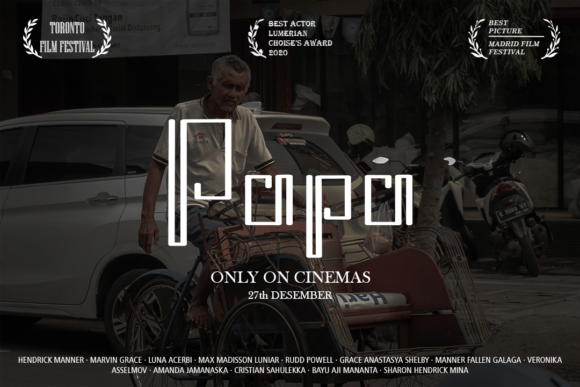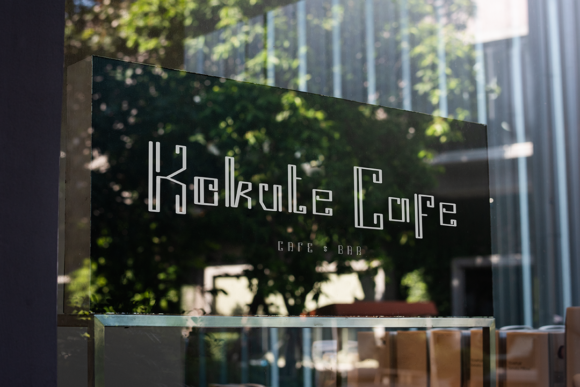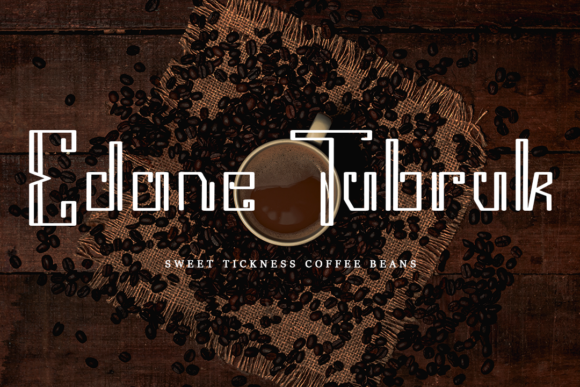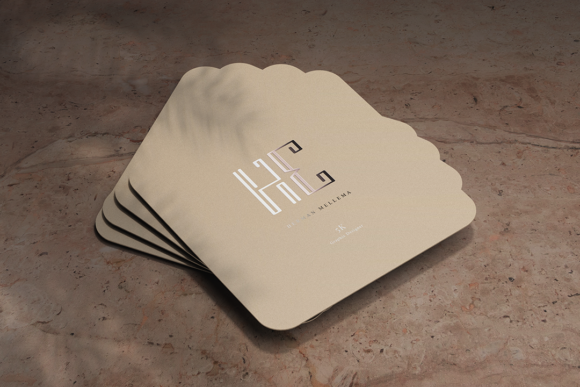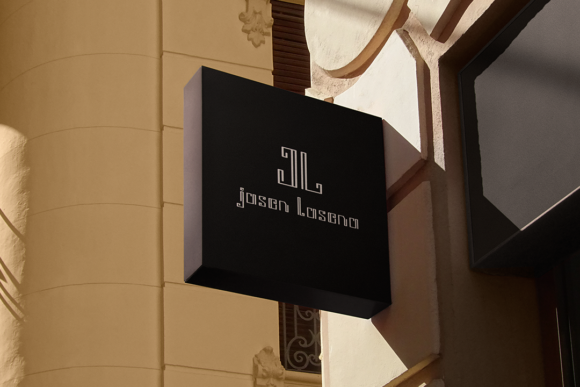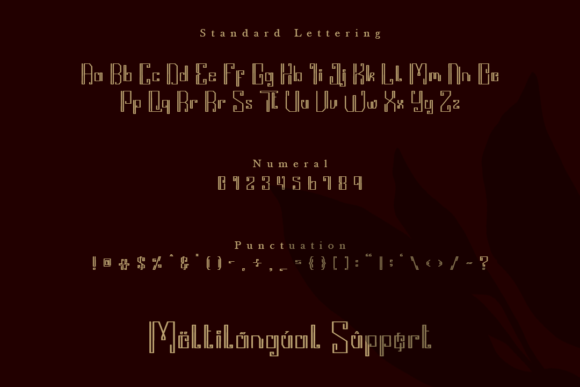
Unlock the Creative Potential of Your Designs with Javana Font
Have you ever stared at a blank canvas, waiting for inspiration to strike? We’ve all been there – the blank page, the empty screen, the ‘what’s next?’ feeling. But sometimes, all it takes is the right tool to spark that creative spark. For designers, graphic artists, and crafty enthusiasts, the Javana Font is that game-changing tool. This genuine and interesting display font is designed to add a touch of trendiness to your projects, whether you’re working on digital designs, presentations, or crafting handmade cards.
The Javana Font is more than just a stylish addition – it’s a valuable asset for designers looking to elevate their work. With its perfect balance of modern flair and timeless elegance, this font is sure to leave a lasting impression on your audience. Whether you’re a seasoned pro or just starting out, the Javana Font is an essential addition to your design toolkit.
Javana Font Key Features
- Font Family: Javana Font is a sans-serif font family, designed to provide a clean and modern look for digital and print media.
- Character Count: The font family includes over 500 characters, including Latin, Cyrillic, and Greek alphabets, as well as punctuation and diacritical marks.
- Unique Characteristics: Javana Font features a distinctive x-height and a unique letterform design, making it stand out from other sans-serif fonts and adding a touch of elegance to digital and print media.
Javana Font Review
I recently had the chance to work with Javana Font, and I must say it’s a unique and intriguing typeface. ✨ The subtle nuances in letterforms and the elegant curves give it a sophisticated feel, making it perfect for high-end branding and luxury designs.
Here are some of its standout features:
- ✨ Elegant and refined letterforms
- ✨ Wide range of weights and styles
- ✨ Highly legible, even at small font sizes
- ✨ Works well in both digital and print applications
However, I do have some reservations about its limitations:
- ⚠️ Limited support for languages other than Latin
- ⚠️ May not be suitable for use in informal or playful designs
- ⚠️ Some users may find the font too ornate or overwhelming
Overall, I think Javana Font is a solid choice for designers looking to create high-end, sophisticated designs. While it may have some limitations, its unique features and elegant aesthetic make it a great addition to any design toolkit.
Common Use Cases for Javana Font
Javana Font is particularly well-suited for use in headings, titles, and logos. It’s also a great choice for creating a modern and sophisticated look in business presentations and marketing materials.
Alternatives to Javana Font
Montserrat is a sans-serif font that is highly legible and versatile. It is designed for digital use and works well for body text and headings. Montserrat is a great alternative to Javana Font when you need a clean and modern look. It is available in multiple weights and styles, making it suitable for various design projects. Montserrat is more geometric and has a stronger structure compared to Javana Font.
Open Sans is a modern sans-serif font that is highly legible and works well for digital use. It is designed to be neutral and clean, making it suitable for a wide range of design projects. Open Sans is a great alternative to Javana Font when you need a font that is easy to read and has a neutral tone. It is available in multiple weights and styles, making it suitable for various design projects. Open Sans is more rounded and has a softer feel compared to Javana Font.